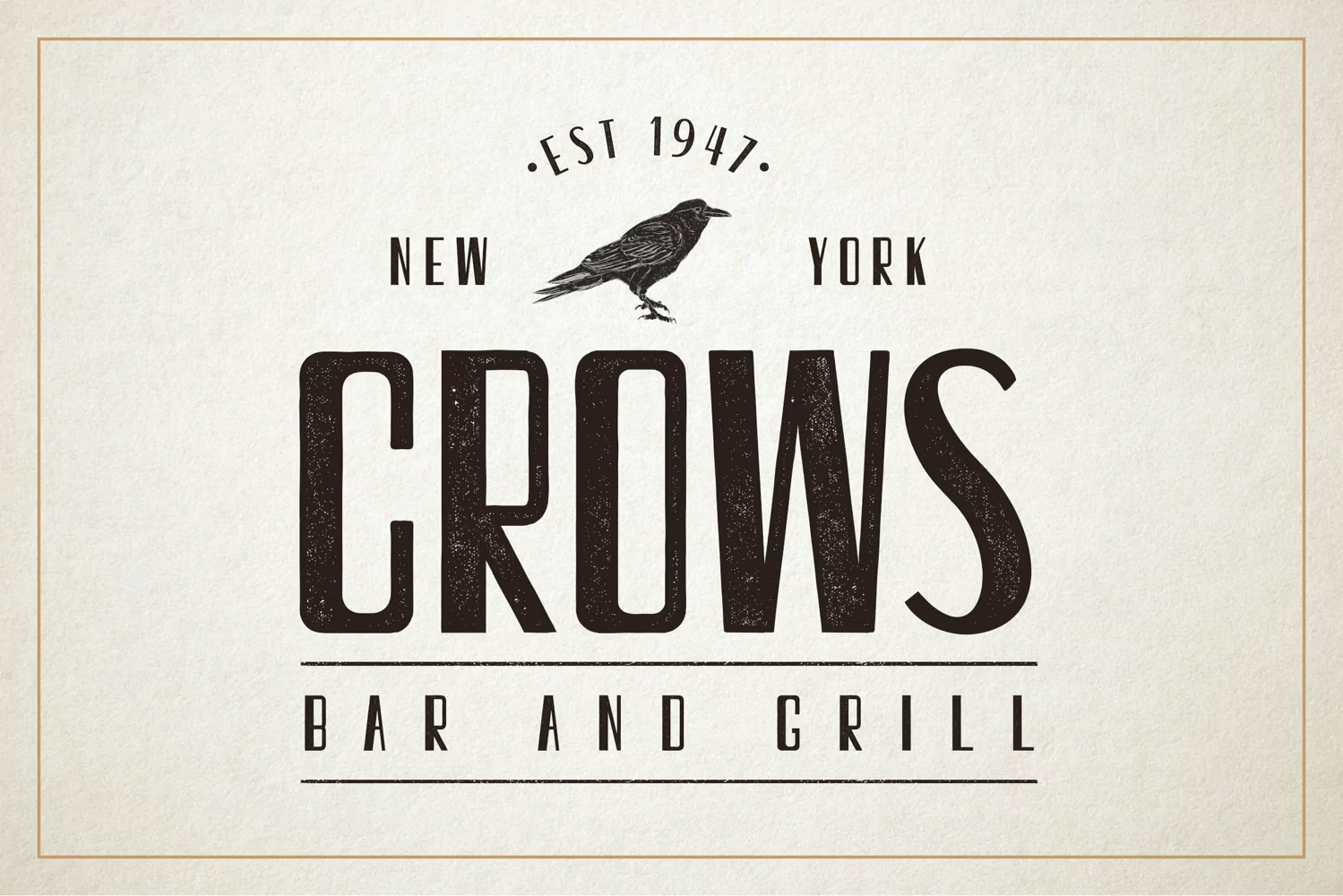
Introducing: Clutch, a sans serif font that is perfect for your all your retro designs. It comes with two styles, for more flexibility it comes with clean and distressed versions.
- Two versions - Clean and Distressed
- All Caps Font